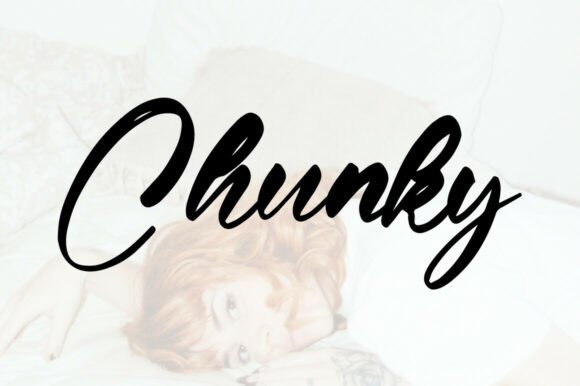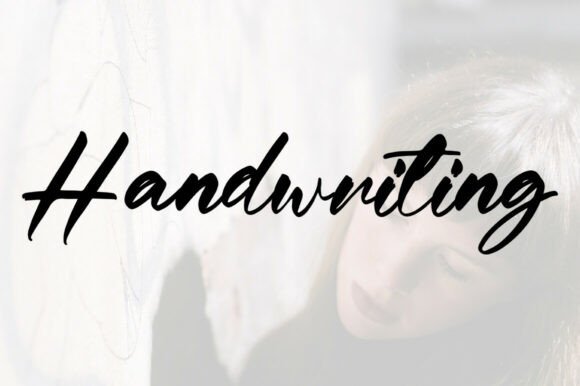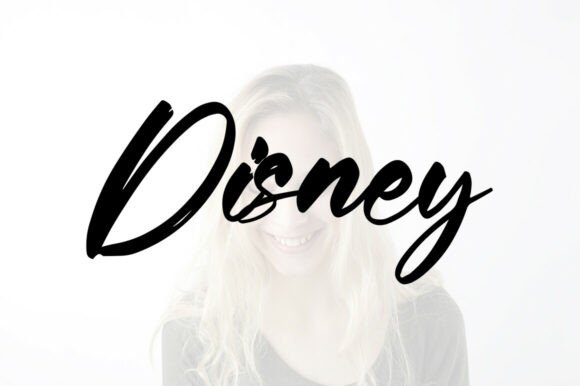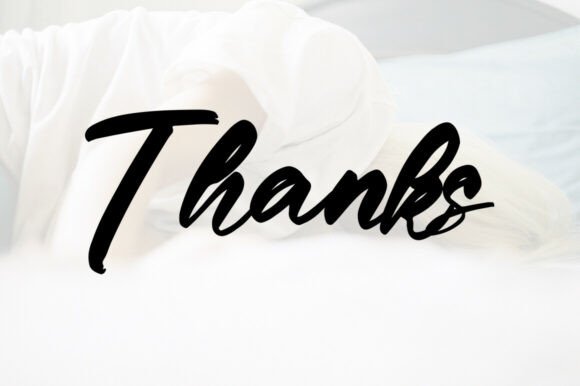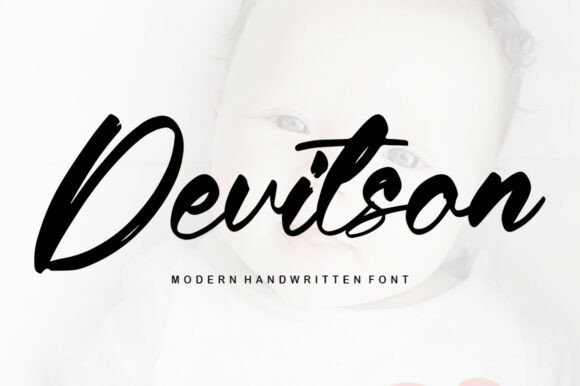
Discover the Charm of Devitson Font: Elevate Your Designs with a Timeless Handwritten Style
Are you on the hunt for a font that adds a personal touch to your designs? Look no further than Devitson Font, a lovely and timeless handwritten font that is sure to capture the hearts of designers and crafters alike. With its unique and beautiful touch, Devitson is the perfect choice for creating eye-catching logos, branding, and quotes that stand out from the crowd.
Handwritten fonts have a way of adding a personal and human touch to designs. They evoke emotions and create a sense of connection with the viewer. Unlike generic and overused fonts, handwritten fonts like Devitson bring a level of authenticity and originality to your work. Whether you’re designing a logo, creating a brand identity, or crafting a quote, a well-chosen handwritten font can make all the difference.
What Makes Devitson Font Special?
Devitson Font is a standout in the world of handwritten fonts. Each letter has been carefully crafted to have a unique and beautiful touch, making it a true one-of-a-kind font. The result is a font that is not only visually stunning but also highly versatile. Whether you’re looking to create a bold and statement-making design or a soft and elegant one, Devitson Font is up to the task.
So, what makes Devitson Font the best choice for logos, branding, and quotes? For starters, its handwritten style gives it a friendly and approachable feel, making it perfect for brands that want to connect with their audience on a personal level. Additionally, the font’s unique and beautiful touch ensures that your designs will stand out from the competition. Whether you’re looking to create a logo that tells a story or a quote that inspires, Devitson Font is the perfect tool for the job.
Tips for Using Devitson Font in Your Designs
Now that you’ve fallen in love with Devitson Font, here are a few tips for incorporating it into your designs:
- Pair it with a neutral font: Devitson Font is a bold and eye-catching font, so it’s best to pair it with a neutral font that won’t compete for attention. This will create a beautiful contrast that will make your design pop.
- Experiment with colors: Devitson Font looks stunning in a variety of colors, so don’t be afraid to experiment and find the perfect hue for your design.
- Use it sparingly: While Devitson Font is a beautiful font, it’s best to use it sparingly to avoid overwhelming your design. Use it for headings, titles, or quotes to add a touch of personality and flair.
In conclusion, Devitson Font is a timeless and lovely handwritten font that is sure to elevate your designs to the next level. With its unique and beautiful touch, it’s the perfect choice for creating eye-catching logos, branding, and quotes that capture the hearts of your audience. Whether you’re a designer, crafter, or simply someone who appreciates beautiful typography, Devitson Font is a must-have in your font collection.